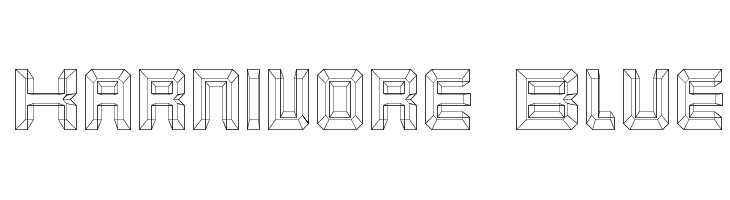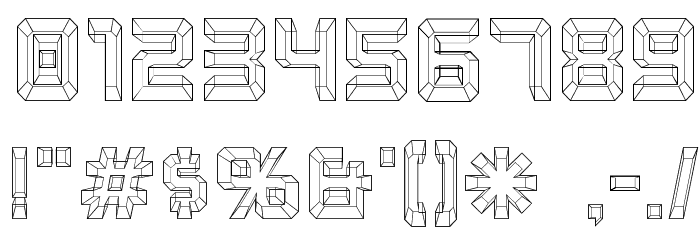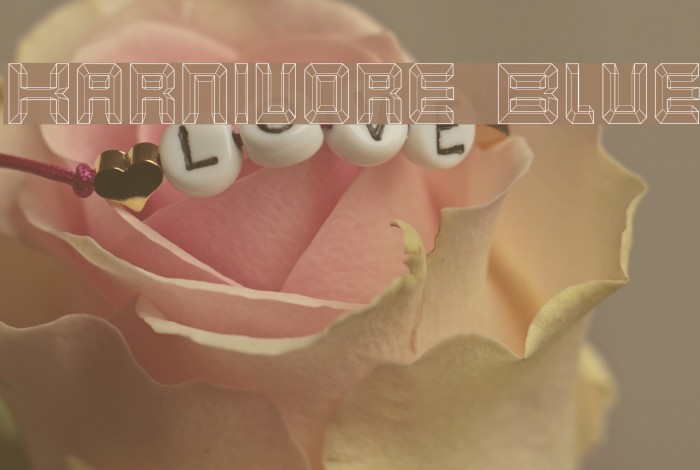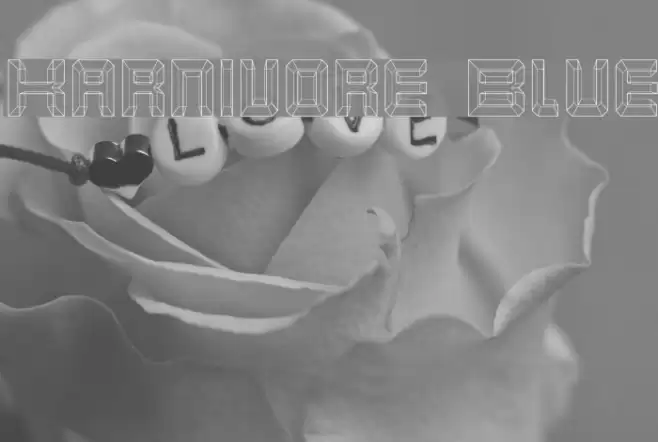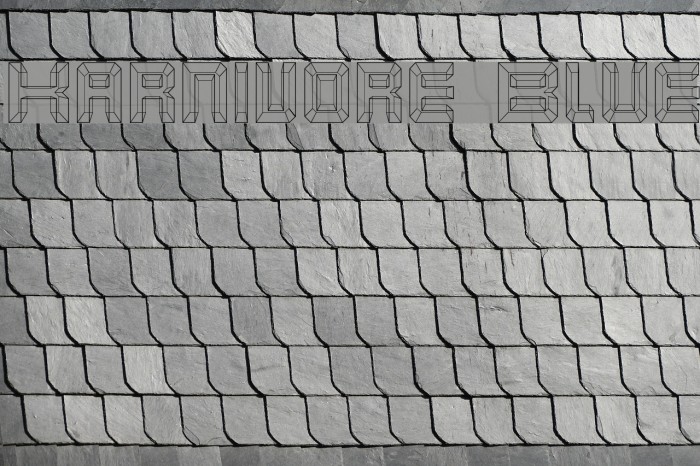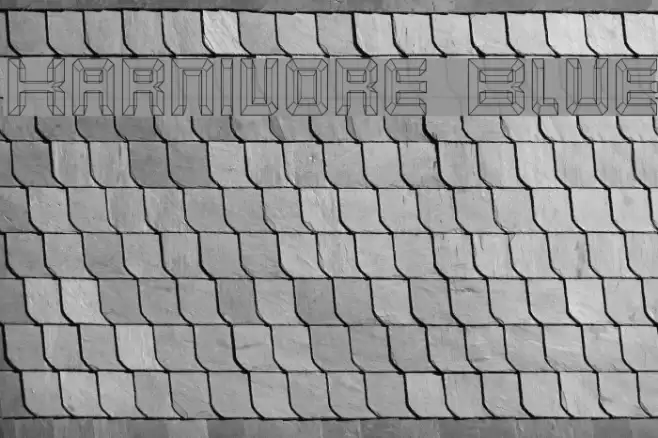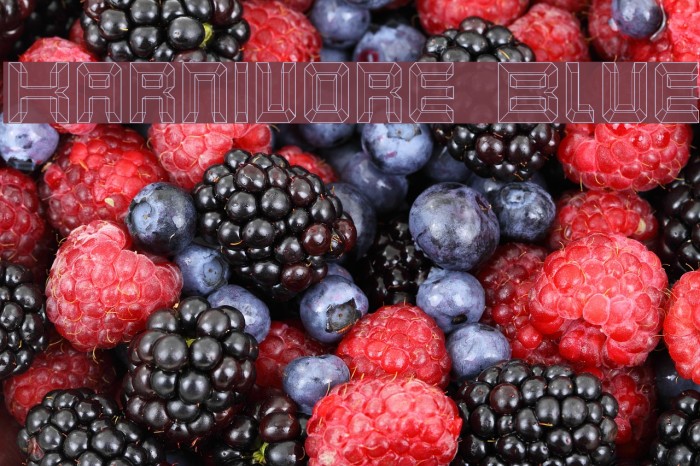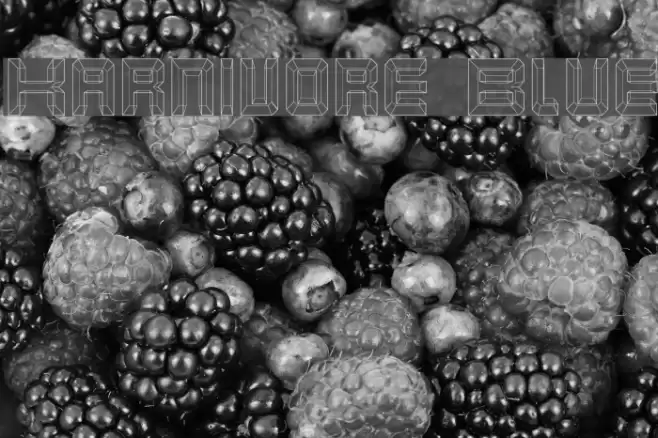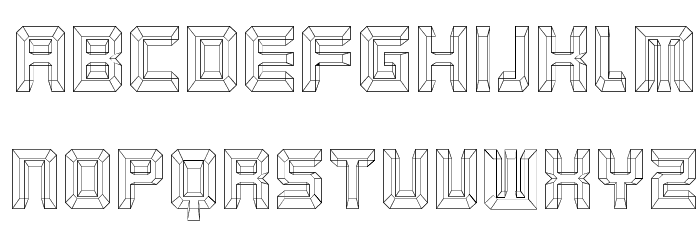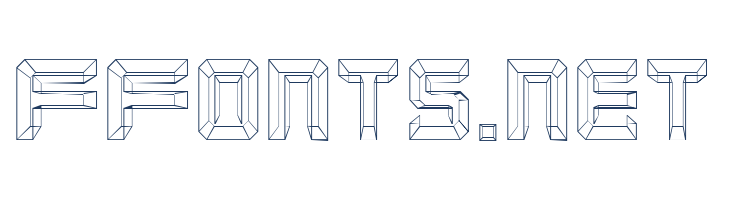
Karnivore Blue Font
Karnivore Blue Description
This font features a bold, geometric design with a three-dimensional effect, giving each character a unique, angular appearance. The lines are sharp and precise, creating a sense of depth and structure. The uppercase and lowercase letters maintain a consistent style, with each character appearing as if it is constructed from interlocking blocks. The numbers and special characters follow the same design principles, ensuring uniformity across the font. This font's distinct style makes it ideal for projects that require a modern and edgy look.
| Proposed Projects | Ideal for video game titles, sci-fi movie posters, tech branding, and modern art installations. |